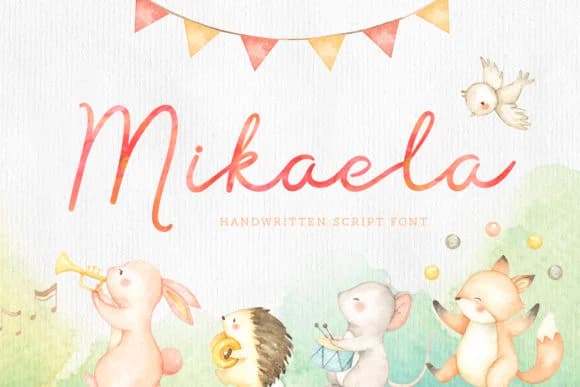
Mikaela Script Font by typefairy is a hand-lettered script typeface with delicate, feminine character that brings warmth and personality to any project. The flowing letterforms have an organic quality that works beautifully for personal branding applications, from custom stationery suites to small business logo designs. Whether you're creating wedding invitation sets, designing greeting card layouts, or curating social media graphics for lifestyle brands, Mikaela delivers an authentic handwritten aesthetic that stands out without feeling overly decorative. The font works equally well for print and digital applications, making it ideal for crafters and designers building cohesive visual identities. Its approachable elegance suits boutique packaging design, personalized gift tags, and custom journal covers, projects where authenticity and a human touch truly matter. The versatile letterforms maintain strong readability across different sizes while preserving the handmade charm that makes script fonts so appealing for heartfelt designs and meaningful projects. Mikaela Script Font offers the tactile, human quality that professional designers and DIY creators alike seek when they want their work to feel personal, intentional, and distinctly theirs. The font's character shines whether used for delicate details or as a statement element in larger compositions. Get Mikaela Script Font on Creative Fabrica and bring this sophisticated hand-lettered charm to your next design project.
Mikaela Script Font is a script font that shines as a display or heading face. Pair it with a clean sans-serif or serif font for body text β the contrast creates a clear hierarchy while the two styles stay balanced and easy to read.